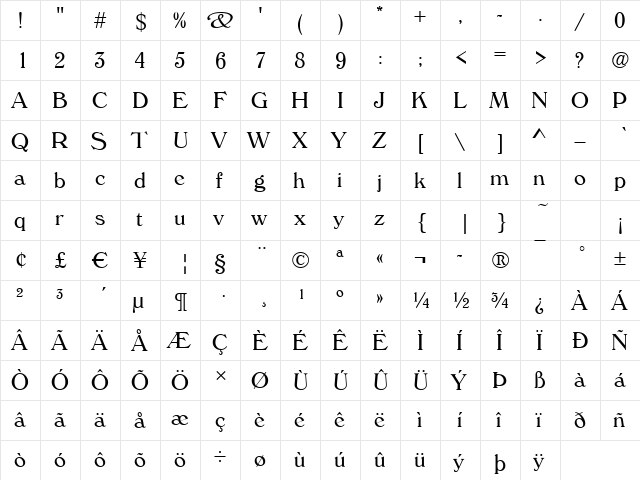
Whitehall Regular
Design Context for Whitehall Typeface
Whitehall offers clean, dependable letterforms without strong stylistic allegiance, making it a practical choice for designers who need flexibility.
Pro Tip: Pair Whitehall with a font of contrasting weight or personality to build a more expressive typographic hierarchy.